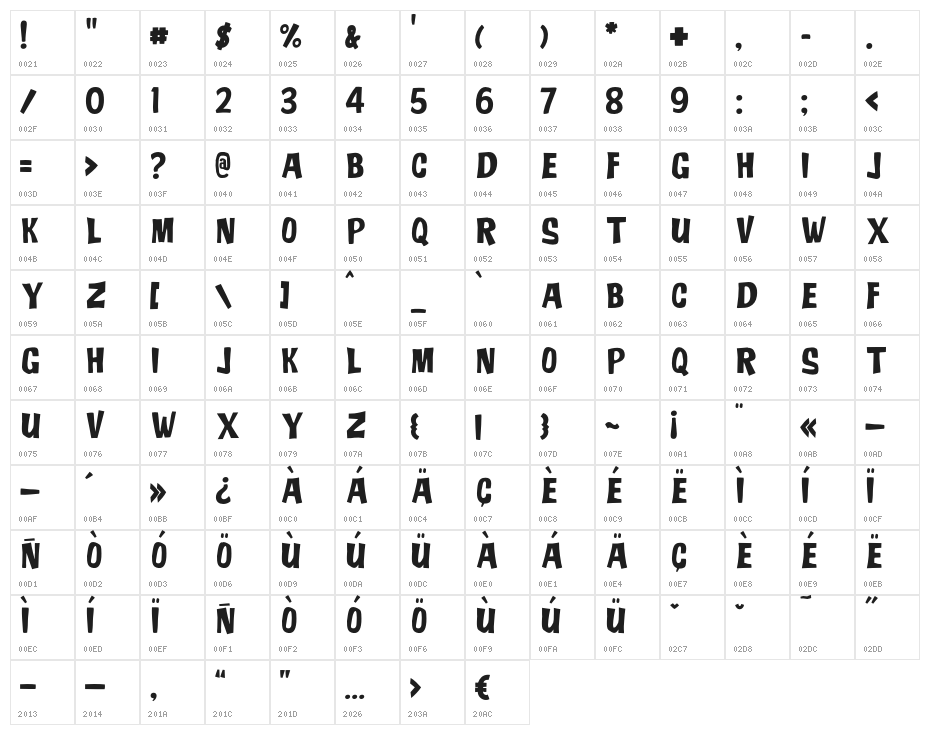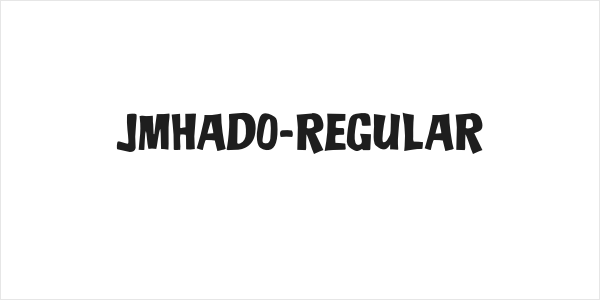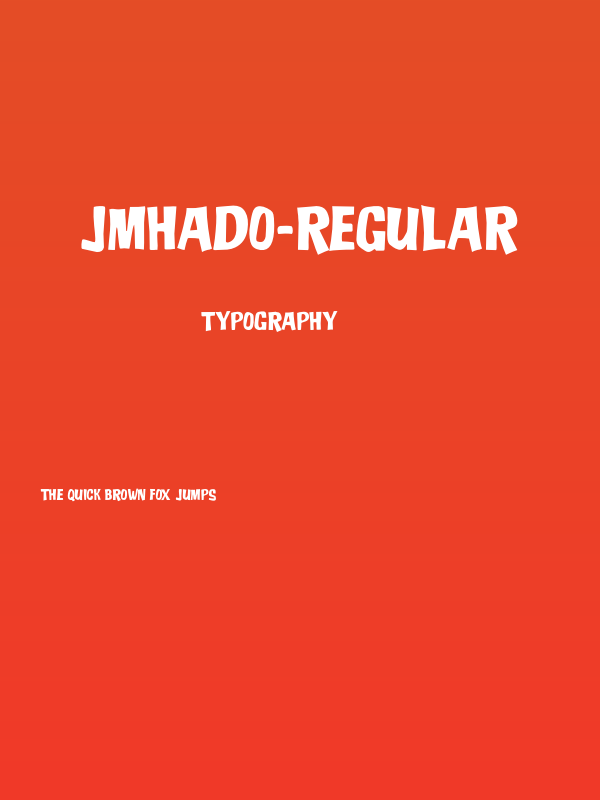
JMHADO-Regular Font
JMHADO-Regular Description
This font exhibits a bold and playful style, characterized by its thick, uneven strokes and slightly distorted letterforms. The uppercase and lowercase letters maintain a consistent weight, contributing to its bold appearance. The numbers and special characters follow the same design principles, ensuring uniformity across all glyphs. The font's quirky and dynamic nature makes it stand out, with each character having a unique flair that adds to its overall charm. The spacing between characters is relatively tight, enhancing the compact and energetic feel of the text. This font is ideal for projects that require a fun and eye-catching aesthetic.
| Overall Style | Playful, Quirky, Energetic |
| Proposed Projects | Ideal for children's books, playful branding, posters, and creative advertisements. |